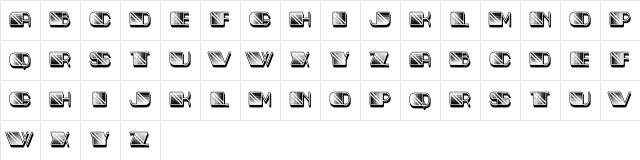
Calzino Regular
Design Context for Calzino Typeface
Calzino is a composed and adaptable typeface that performs quietly and consistently across a wide range of design contexts.